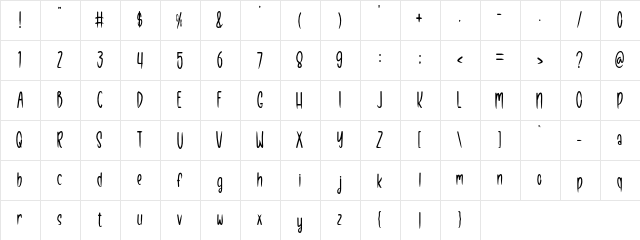
Halloween Night Regular
Design Context for Halloween Night Typeface
Halloween Night offers clean, dependable letterforms without strong stylistic allegiance, making it a practical choice for designers who need flexibility.